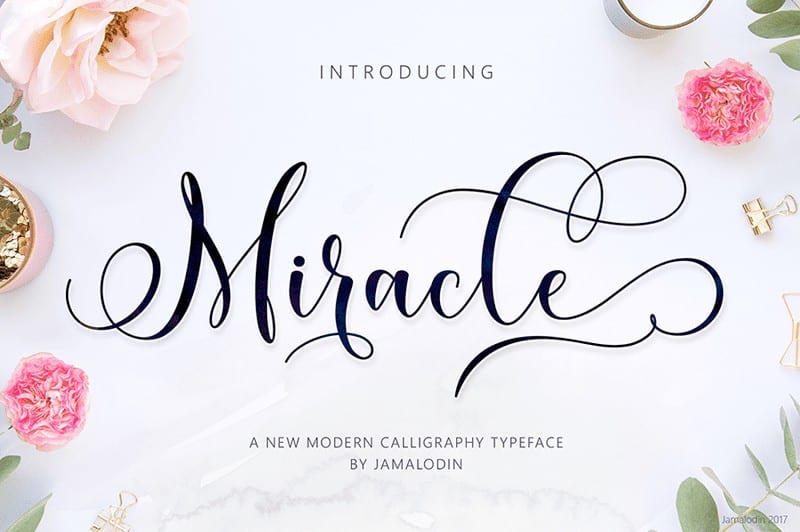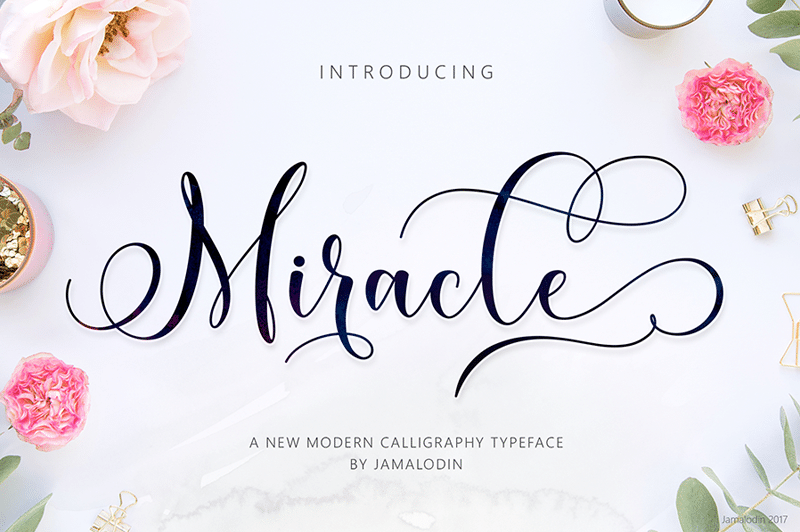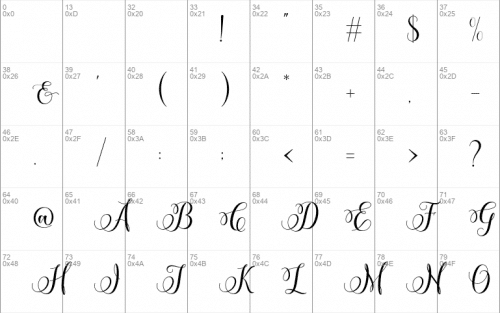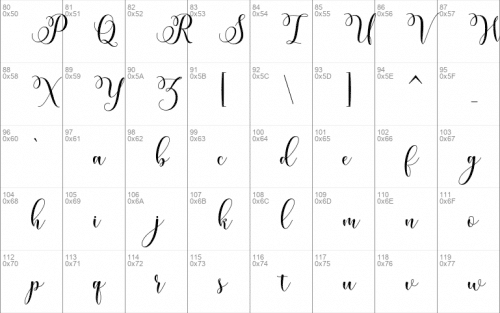
Miracle Script is modern calligraphy script font, every single letters has been carefully crafted to make your text looks beautiful.
With modern script style this font will perfect for many different project, example: invitations, greeting cards, posters, name card, quotes, blog header, branding, logo, fashion, apparel, letter, stationery and more !
- Designer: jamalodin